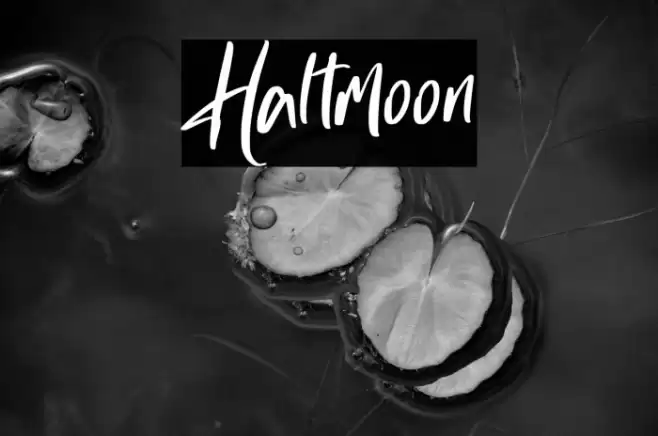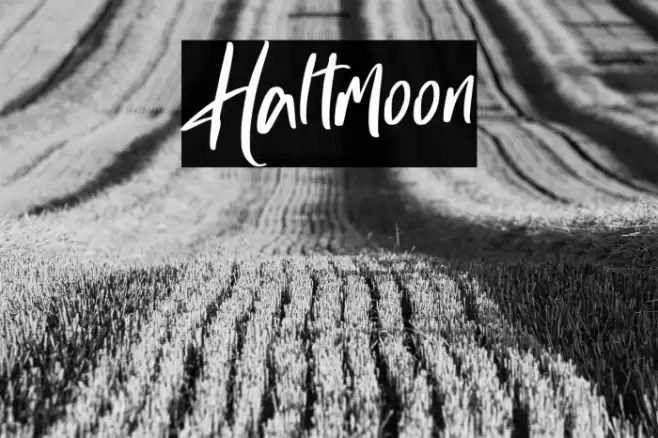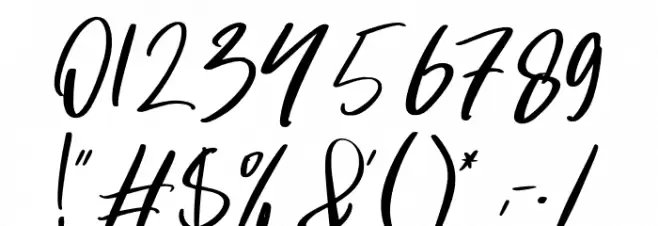
Haltmoon Font
Haltmoon Description
This font features a dynamic and energetic handwritten style, characterized by its fluid and cursive strokes. The uppercase letters are bold and expressive, with a slight slant that adds to the overall movement of the typeface. The lowercase letters maintain a consistent flow, complementing the uppercase with their slightly narrower form. Numbers and special characters are crafted with the same lively spirit, ensuring a cohesive look across all text. The font's playful yet sophisticated appearance makes it ideal for projects that require a personal touch.
A lively handwritten font with fluid, cursive strokes and a dynamic presence from Regular fonts.
- Proposed Projects: Ideal for branding, invitations, greeting cards, and social media graphics where a personal and energetic touch is desired.
- Use Case: Logos, Headlines, Invitations